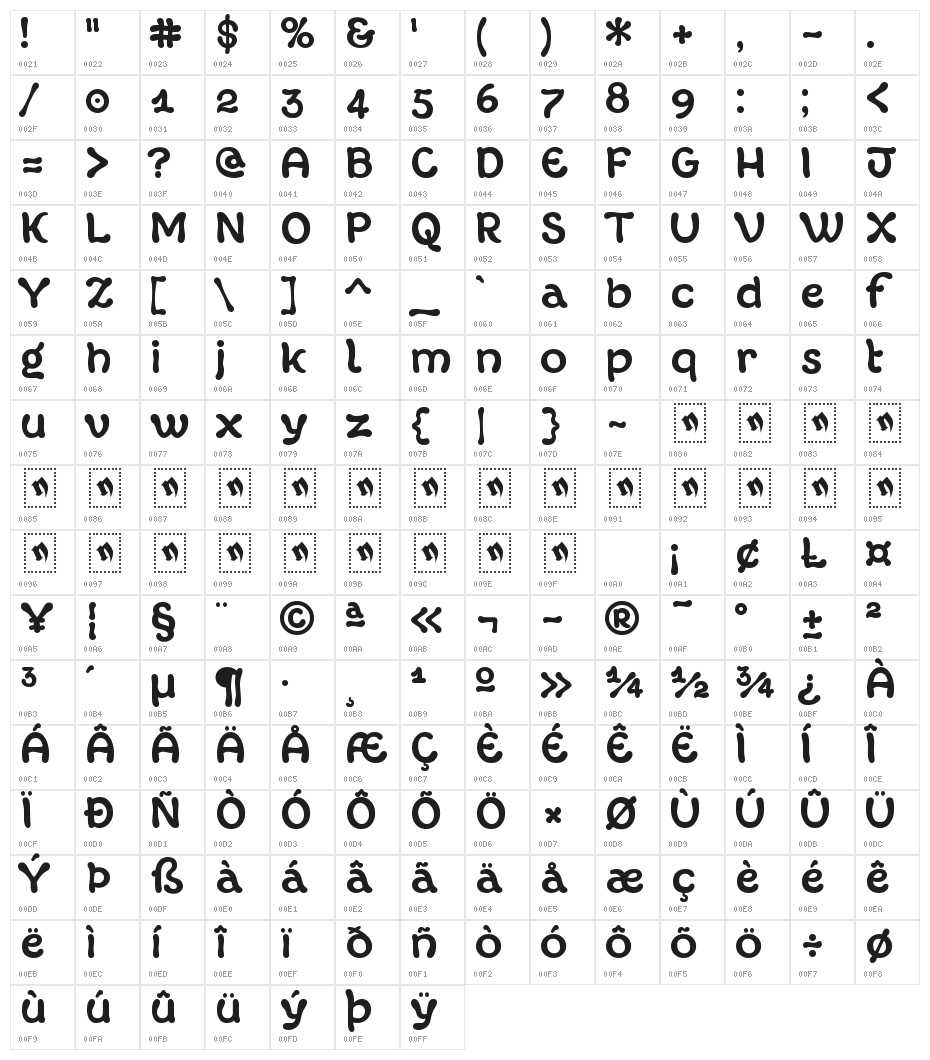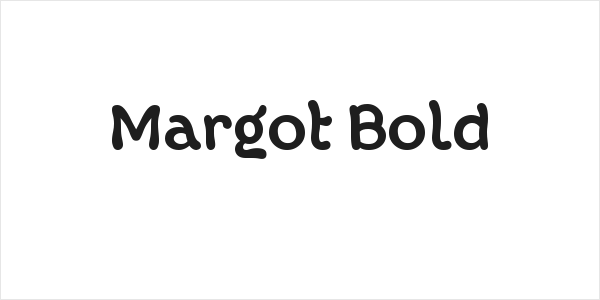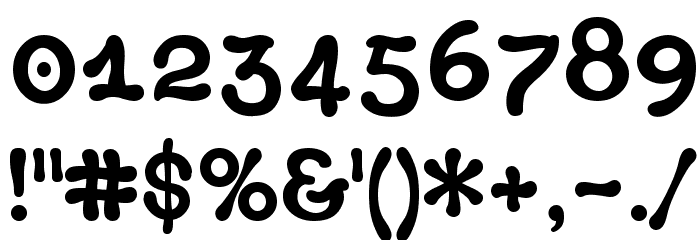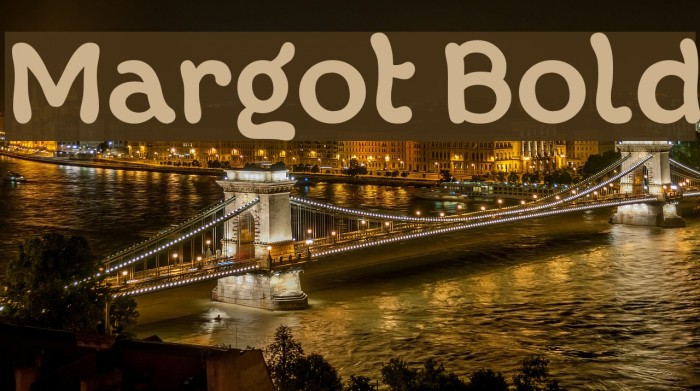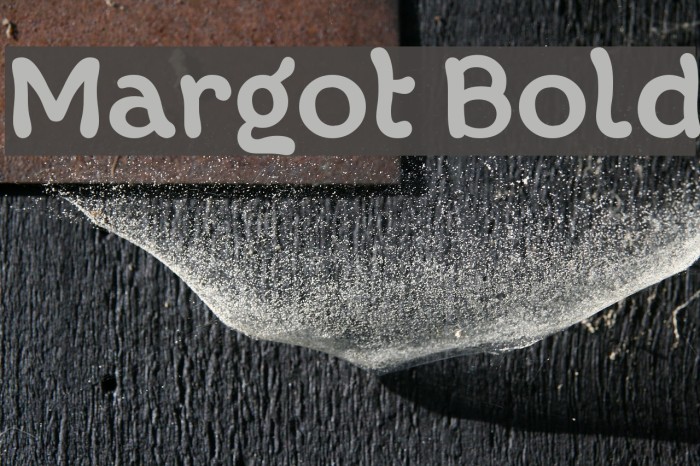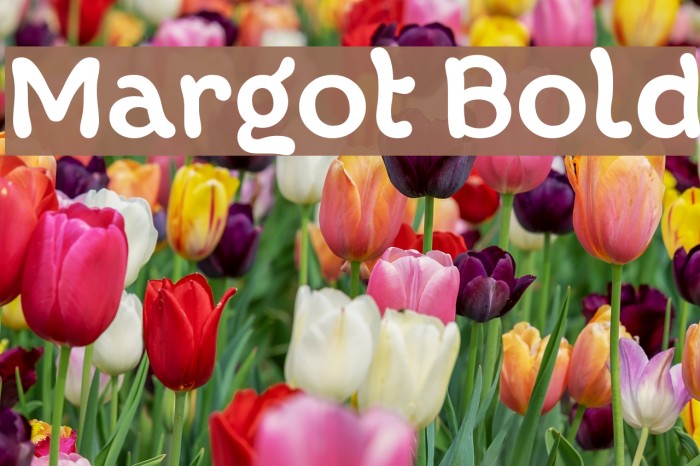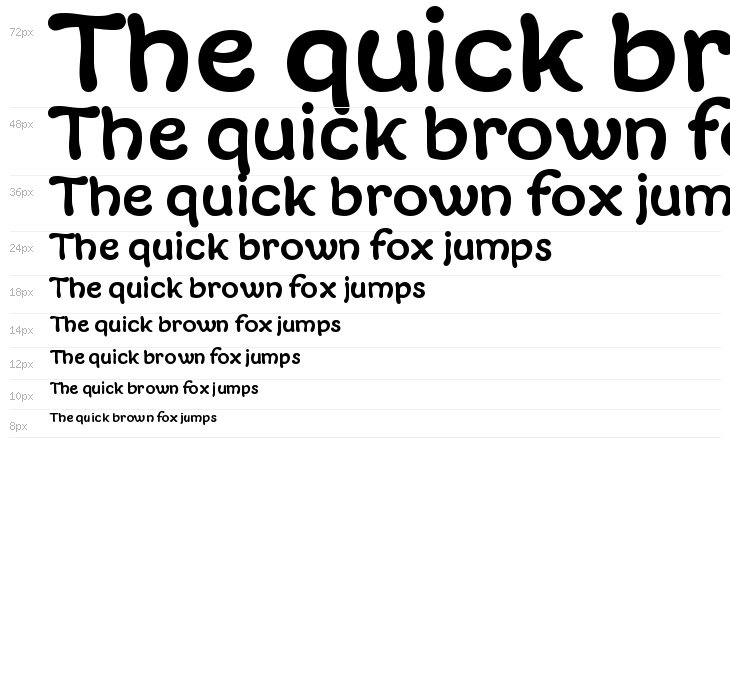
Margot Bold Font
Margot Bold Description
This font features a playful and bold design with rounded edges and a slightly irregular shape, giving it a hand-drawn appearance. The characters are thick and substantial, providing a strong presence on the page. The uppercase and lowercase letters maintain a consistent style, with a whimsical touch that adds personality. The numbers and special characters are equally bold, ensuring readability and uniformity across different uses. This font is ideal for projects that require a fun and approachable aesthetic, such as children's books, playful branding, or creative posters.
| Proposed Projects | Children's books, playful branding, creative posters, informal invitations. |